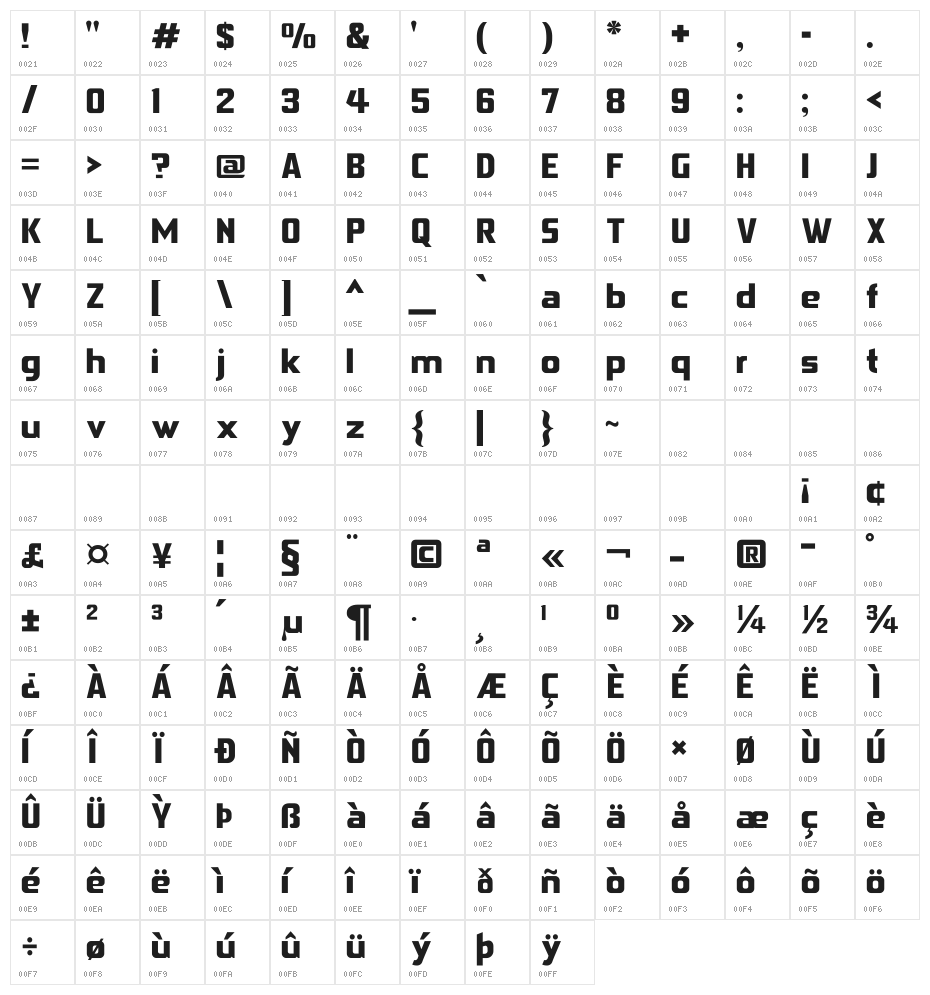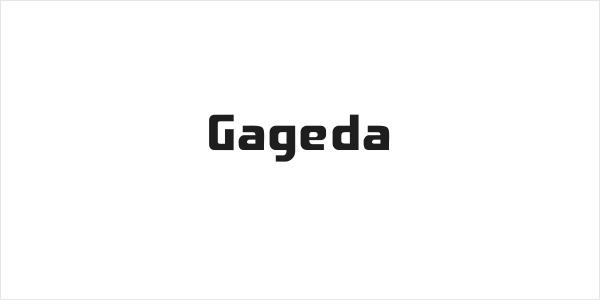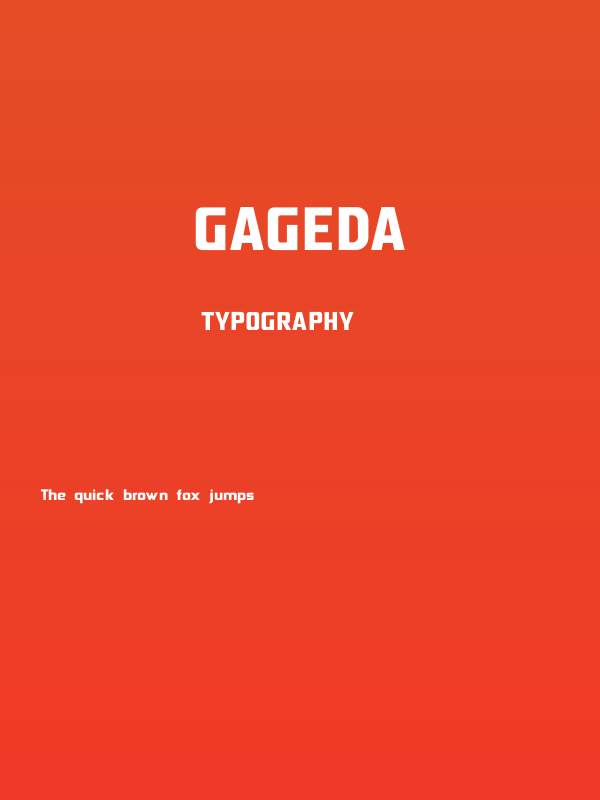
Gageda Font
Gageda Description
This font features a bold and assertive design with strong geometric shapes and a modern aesthetic. The uppercase letters are robust and commanding, while the lowercase letters maintain a consistent weight and structure. The numerals are equally bold, ensuring clarity and impact. Special characters are designed with the same boldness, making them stand out effectively. The overall style is clean and contemporary, suitable for making a strong visual statement.
| Proposed Projects | Ideal for branding, headlines, posters, and any design requiring a bold statement. |